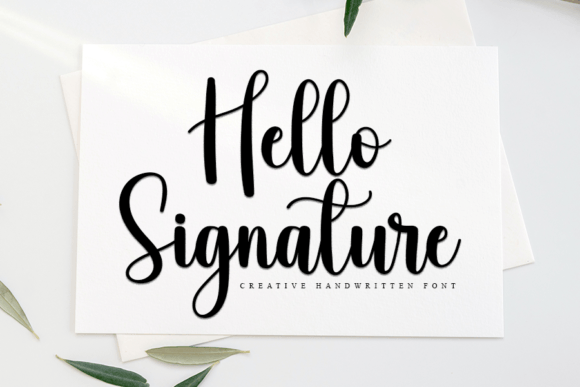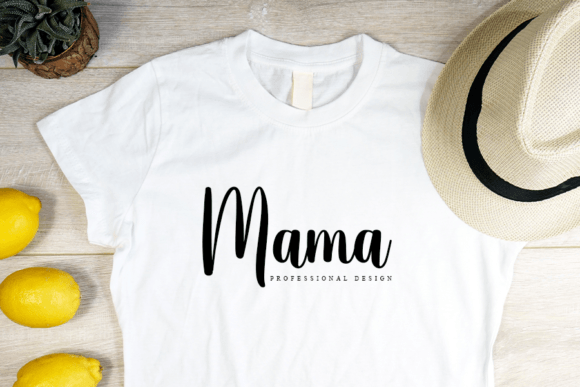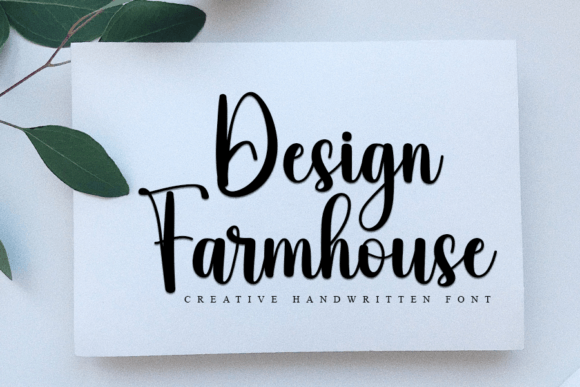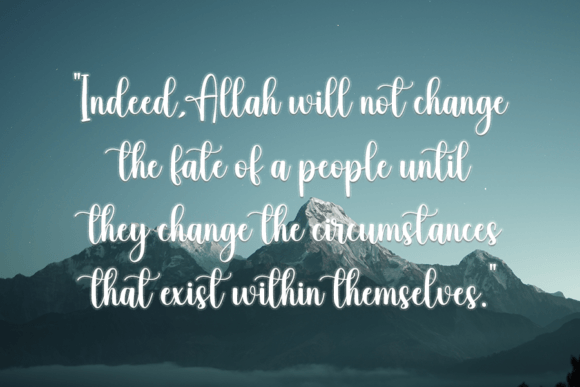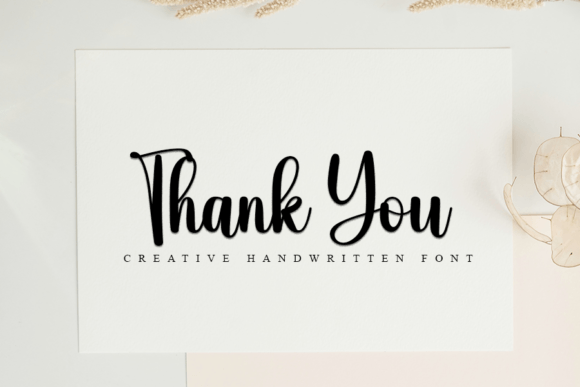
Hey Mama: A Delicate Handwritten Font
Hey Mama is a beautiful, carefully crafted font designed for those who appreciate a cool and unique design. This versatile font can be used for writing letters, creating invitations, designing food products, titles, and more. Its delicate, handwritten style adds a touch of elegance and sophistication to any project.
The Good ✨
- Unique and eye-catching design ✅
- Delicate and elegant, perfect for invitations and titles ✨
- Supports OpenType features, glyphs, and stylistic alternates 📚
- Easy to read and works well in both digital and print formats 📊
The Not-So-Good 🤔
- May not work well for very long texts or body content ⚠️
- Limited availability of certain characters or symbols 🤔
The Story Behind Hey Mama: Designer Inspiration
Hey Mama was designed by a talented typographer who wanted to create a font that would capture the essence of delicate, handwritten script. The designer’s inspiration came from classic handwritten fonts, with a modern twist. The result is a beautiful, unique font that adds a touch of elegance to any project.
Q: What is Hey Mama font best used for?
A: Hey Mama font is best used for titles, invitations, food products, and other design projects where a delicate, handwritten style is desired.
Q: Is Hey Mama font suitable for body content?
A: While Hey Mama font is easy to read, it may not be the best choice for very long texts or body content. It’s better suited for shorter texts and titles.
Q: Does Hey Mama font support OpenType features?
A: Yes, Hey Mama font supports OpenType features, glyphs, and stylistic alternates, making it a versatile font for designers.